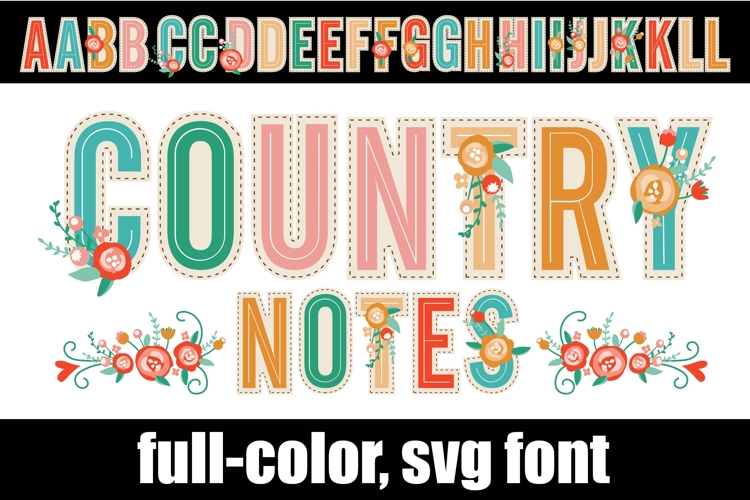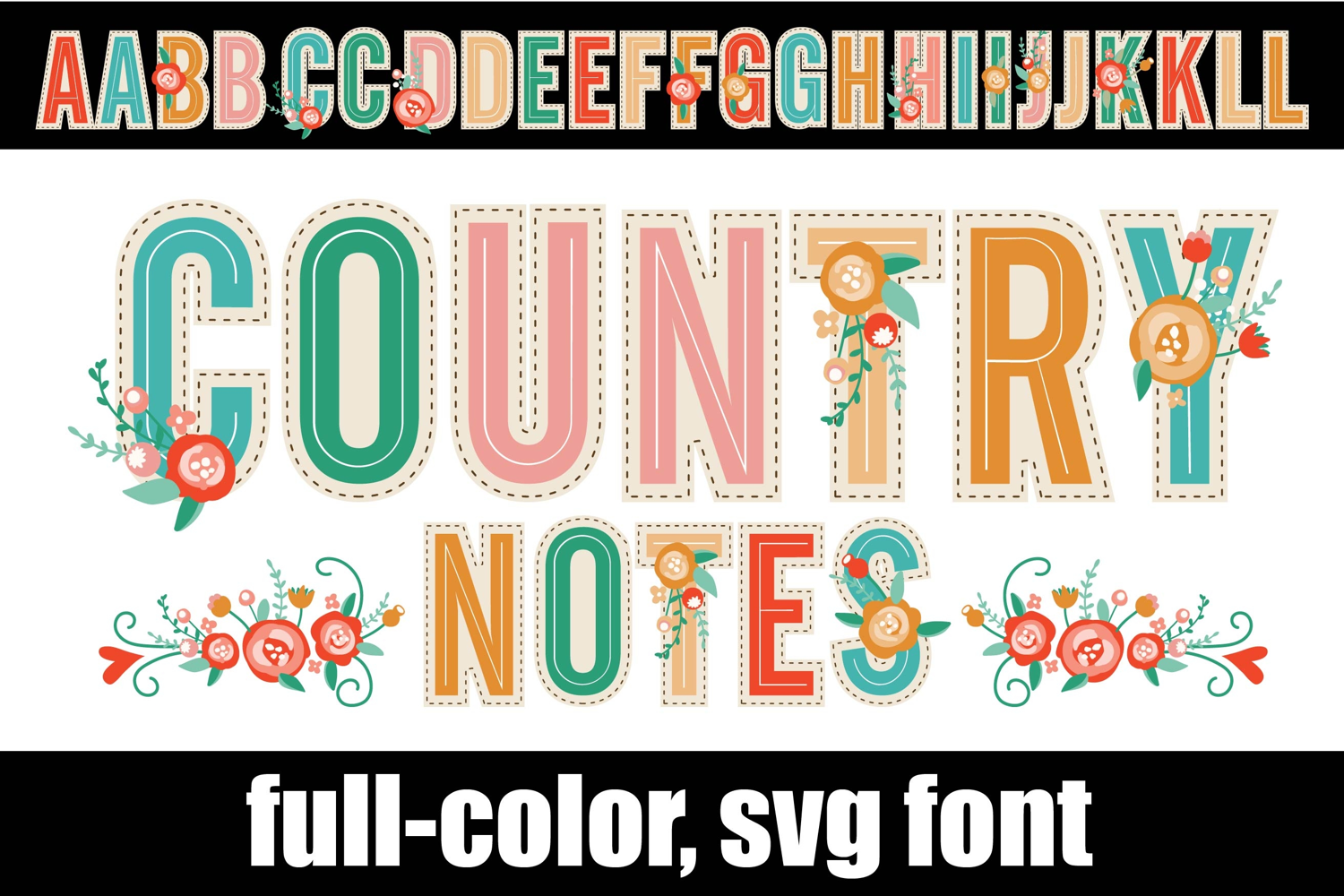
Country Notes Color Font
This full-color, sans serif font with florals throughout in a country color palette. There is an alt case of additional colors of each letter that you can access through your system's character map. For the floral flourishes type the greater than and less than brackets.